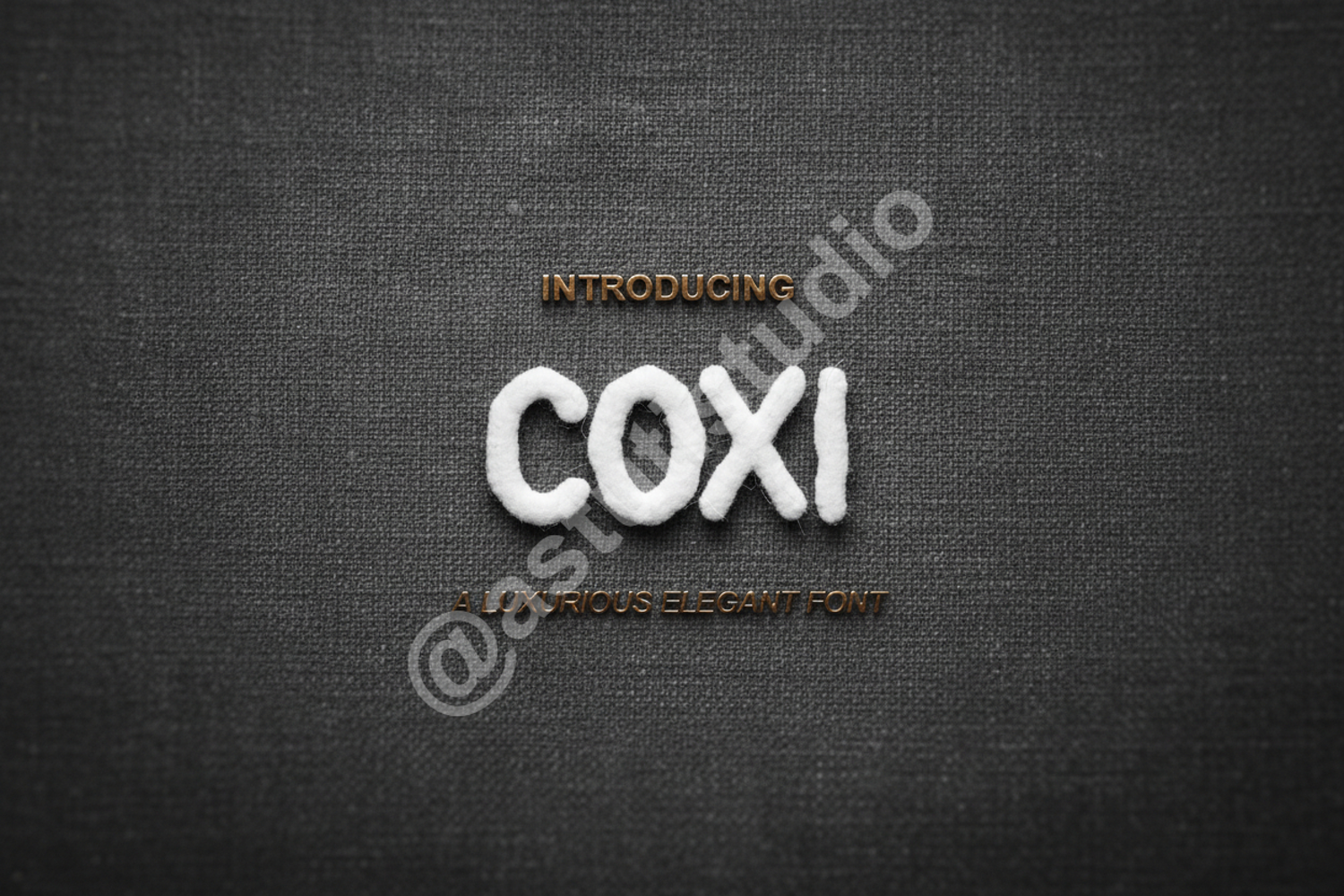
Coxi - Modern Geometric Sans Serif Font
Coxi
Elevate your creative projects with Coxi, a premium geometric sans-serif font engineered for modern aesthetics and maximum versatility. Coxi strikes the perfect balance between minimalist clean lines and professional sophistication, making it an essential addition to any designer's toolkit. Whether you are building a high-end brand identity or a sleek digital interface, this font provides the clarity and style your work deserves.
- Branding and Logo Design: Craft impactful and memorable visual identities.
- Web and UI/UX Design: Ensure high legibility across all digital screens.
- Editorial Layouts: Perfect for bold headlines and clean body text in magazines.
- Social Media Graphics: Create standout content for Instagram, Pinterest, and LinkedIn.
- Corporate Stationery: Maintain a polished and modern look for business cards and letterheads.